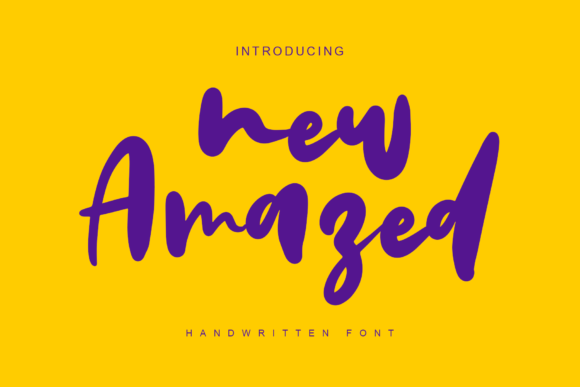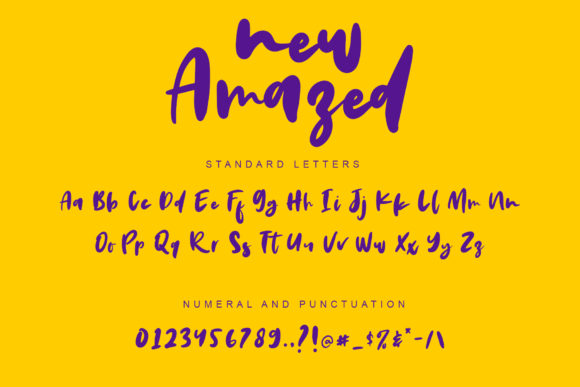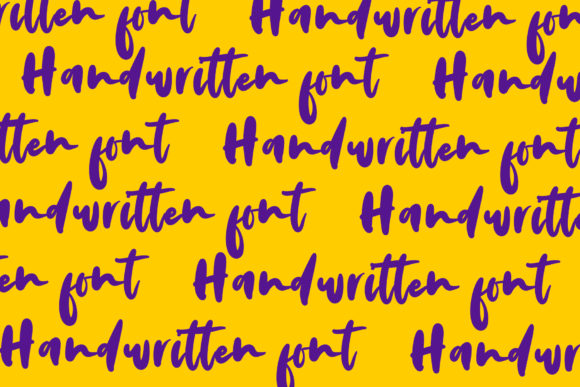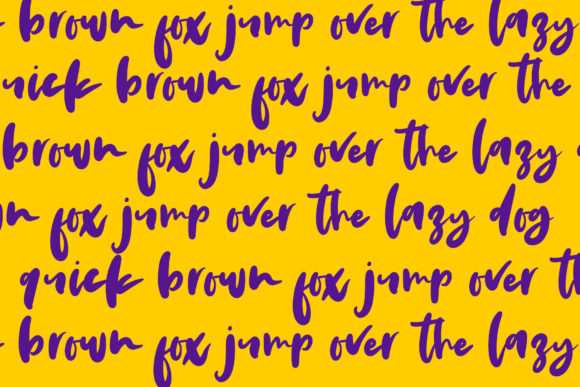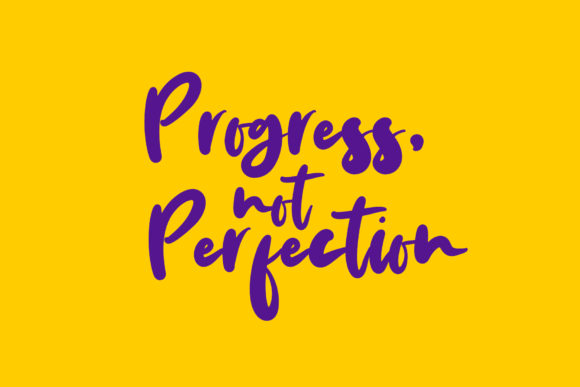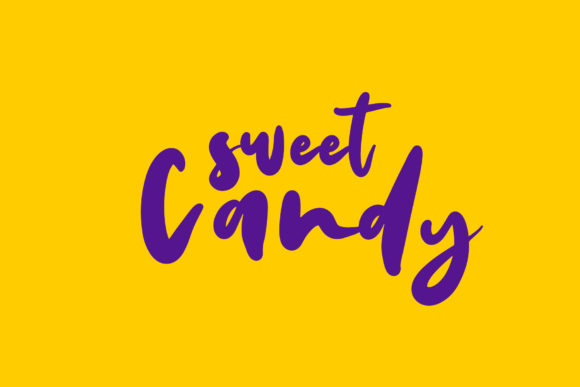
Introduction to New Amazed Font
Have you ever stared at a blank canvas, trying to bring your creative project to life? The blank page can be daunting, but what if you had the perfect design resource to spark your imagination? For designers and creatives, finding the right font can make all the difference between a mediocre project and a true masterpiece.
That’s where the New Amazed Font comes in – a free download that’s sure to amaze. With its unique, handwritten style, this enchanting font embodies the essence of fun, quirkiness, and authenticity. Whether you’re working on a design project, crafting a social media post, or creating a visual identity for your brand, the New Amazed Font is the perfect addition to take your work to the next level.
Available with a transparent background, the New Amazed Font is a high-quality design resource that’s easy to use and customize. From logos to quotes, this versatile font is sure to elevate your creative ideas and make them stand out in a crowded digital landscape.
Key Features of New Amazed Font
- Unique, hand-crafted design elements that add a touch of personality to any creative project.
- Perfect for designers working on digital or print projects, including logos, graphics, and other visual elements.
Honest Review: New Amazed Font
I recently came across the New Amazed Font and was excited to dive in and see what it had to offer. As a designer, I’m always on the lookout for high-quality design resources to help bring my creative projects to life.
What works well about the New Amazed Font is its unique and playful aesthetic. The font is perfect for adding a touch of whimsy to a design project, and the transparent background makes it easy to use in a variety of applications.
- Unique and playful aesthetic
- High quality for professional designs
However, there are a few limitations to consider. The font is only available in a limited number of weights, which may not be suitable for all design projects. Additionally, some users may find the font to be a bit too ornate for certain applications.
Overall, I’d say the New Amazed Font is a great addition to any designer’s toolkit. While it may not be perfect for every project, it’s definitely worth considering for those looking to add a touch of creativity to their designs.
I’d give the New Amazed Font 4 out of 5 stars. It’s a solid choice for designers looking for a unique and high-quality font, but may not be suitable for every project.
⚠️ Limitations: Limited weight options, may be too ornate for some applications
Getting the Most Out of New Amazed Font
To get the most out of the New Amazed Font, use it in combination with other design elements, such as graphics and images. You can also experiment with different font sizes, colors, and styles to add depth and interest to your design.
The New Amazed Font is perfect for a variety of creative projects, including presentations, documents, and social media graphics. Its high-quality design and transparent background make it easy to use in a range of design contexts.